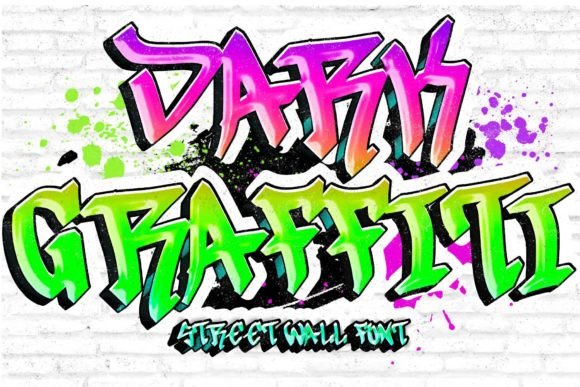
Discover the Edgy World of Dark Graffiti Font
Graffiti has long been a staple of urban culture, with its bold and vibrant letters making a statement on city walls, clothing, and accessories. For designers and artists looking to add a touch of edginess to their work, the Dark Graffiti Font is an excellent choice. This elegant and unique font is perfect for creating striking designs that demand attention.
What Makes Dark Graffiti Font Stand Out?
The Dark Graffiti Font is equipped with a range of features that make it an ideal choice for designers. Some of its key features include:
- Uppercase and lowercase letters
- Numerals and punctuation marks
- Multilingual support
With these features, designers can create complex and visually appealing designs that cater to a wide range of languages and styles.
Endless Design Possibilities with Dark Graffiti Font
The Dark Graffiti Font is incredibly versatile and can be used for a variety of design projects. Some ideas include:
- Painting street walls and creating urban art
- Designing t-shirts, jackets, and other clothing items
- Creating logos and branding materials for businesses
- Designing stickers and decals for promotional use
- Creating tattoos and body art
- Designing bag and accessory designs
Whether you’re a professional designer or an artist looking to express yourself, the Dark Graffiti Font is an excellent choice.
The Unique Style of Dark Graffiti Font
The Dark Graffiti Font boasts a distinctive style that sets it apart from other fonts. Its elegant and refined lines make it perfect for creating sophisticated designs, while its bold and edgy feel ensures that your work will stand out.
Some of the key characteristics of the Dark Graffiti Font include:
- Bold and chunky lines
- Unique lettering style
- Urban and edgy feel
These characteristics make the Dark Graffiti Font an excellent choice for designers looking to add a touch of grit and urban style to their work.
Tips for Using Dark Graffiti Font in Your Designs
To get the most out of the Dark Graffiti Font, here are some design tips to keep in mind:
- Experiment with different colors and textures to add depth and interest to your designs
- Use the font in combination with other design elements, such as images and graphics, to create visually appealing compositions
- Play with different lettering styles and sizes to create a unique and eye-catching design
- Consider using the font in conjunction with other fonts to create a bold and eclectic look
By following these tips, you can unlock the full potential of the Dark Graffiti Font and create stunning designs that showcase your creativity.
The Benefits of Using Dark Graffiti Font
The Dark Graffiti Font offers a range of benefits for designers and artists, including:
- Unique and distinctive style that sets your work apart
- High level of versatility and flexibility
- Easy to read and understand, even at small sizes
- Multilingual support for global design projects
By choosing the Dark Graffiti Font, you can add a touch of edginess and sophistication to your designs, while also benefiting from its practical features and versatility.
The Dark Graffiti Font is an exceptional choice for designers and artists looking to add a touch of urban style and edginess to their work. With its unique and elegant style, versatile features, and practical benefits, this font is perfect for a wide range of design projects.
Whether you’re a professional designer or an artist looking to express yourself, the Dark Graffiti Font is an excellent choice. So why not give it a try and see how it can elevate your designs to the next level?